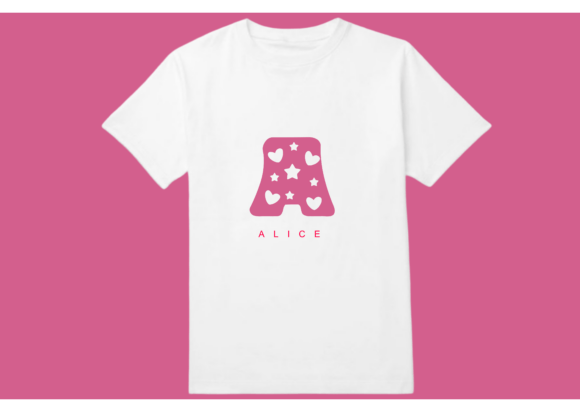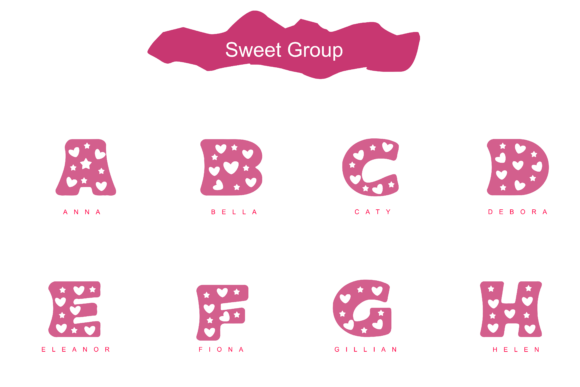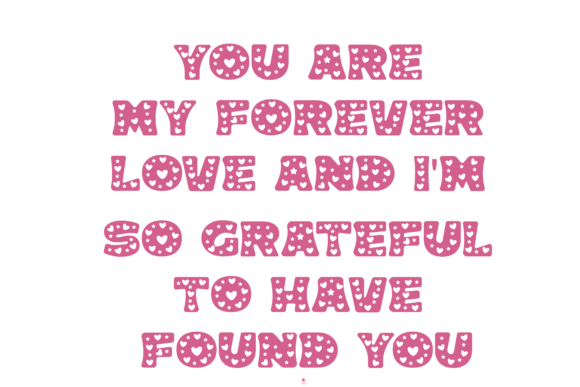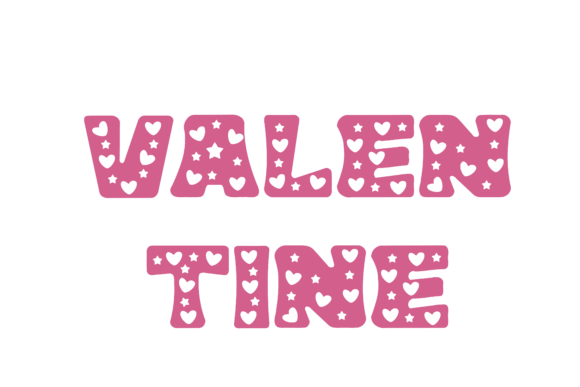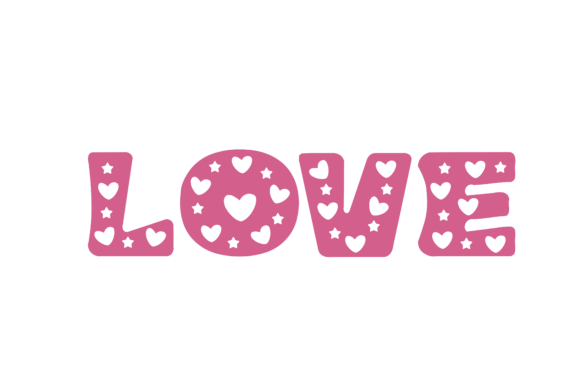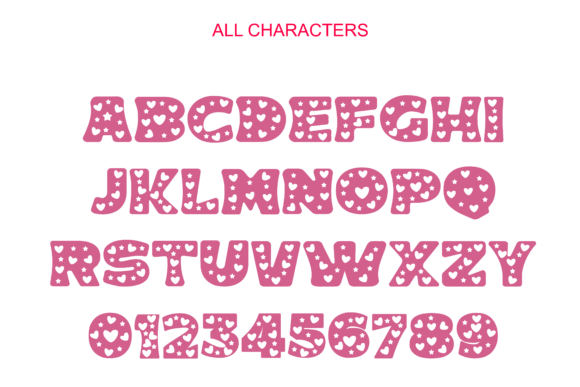
Unleashing Creative Potential with Fulkadot Font: A Vibrant World of Hues and Dynamism
In the realm of typography, few fonts have managed to capture the essence of creativity and dynamism as effectively as Fulkadot. This groundbreaking typeface is not just a collection of letters; it’s an experience, a journey through a vibrant world of hues and momentum. With its unique design and tireless energy, Fulkadot invites artists, designers, and crafters to open their creative canvases and embrace a new level of artistic expression.
The Artistry of Fulkadot: A Symphony of Unparalleled Distinctiveness
Fulkadot resonates with an unequaled distinctiveness, conducting an enchanting symphony in the artistic journey of its users. This font is crafted to infuse depth and layers into works of art, making it an exceptional tool for those looking to elevate their creative projects. Whether you’re designing a logo, crafting a brand identity, or simply looking for a way to add a unique touch to your digital art, Fulkadot offers a refreshing and uncharted approach to typography.
Unleashing Creativity with Fulkadot-Font
The introduction of Fulkadot-font marks a significant milestone in the world of typography. This daring and captivating font is not just a tool; it’s a gateway to new creative possibilities. With Fulkadot-font, designers and crafters can:
- Experiment with new and exciting typography options
- Elevate their creative projects with a unique and vibrant aesthetic
- Explore uncharted artistic landscapes and push the boundaries of their creativity
Why Choose Fulkadot Font?
So, why choose Fulkadot font for your creative projects? Here are just a few compelling reasons:
- Unique Design: Fulkadot boasts a one-of-a-kind design that sets it apart from other fonts.
- Vibrant Energy: This font exudes a vibrant energy that’s sure to captivate audiences and elevate your creative projects.
- Versatility: Fulkadot-font is versatile and can be used in a wide range of creative projects, from branding and advertising to digital art and crafting.
In conclusion, Fulkadot font is a game-changer for designers, crafters, and artists looking to elevate their creative projects. With its unique design, vibrant energy, and versatility, Fulkadot offers a refreshing approach to typography. Whether you’re looking to add a touch of elegance, whimsy, or dynamism to your work, Fulkadot-font is the perfect choice. So, why wait? Unleash your creativity and journey through daring artistic landscapes ignited by the daring and captivating charm of Fulkadot-font.